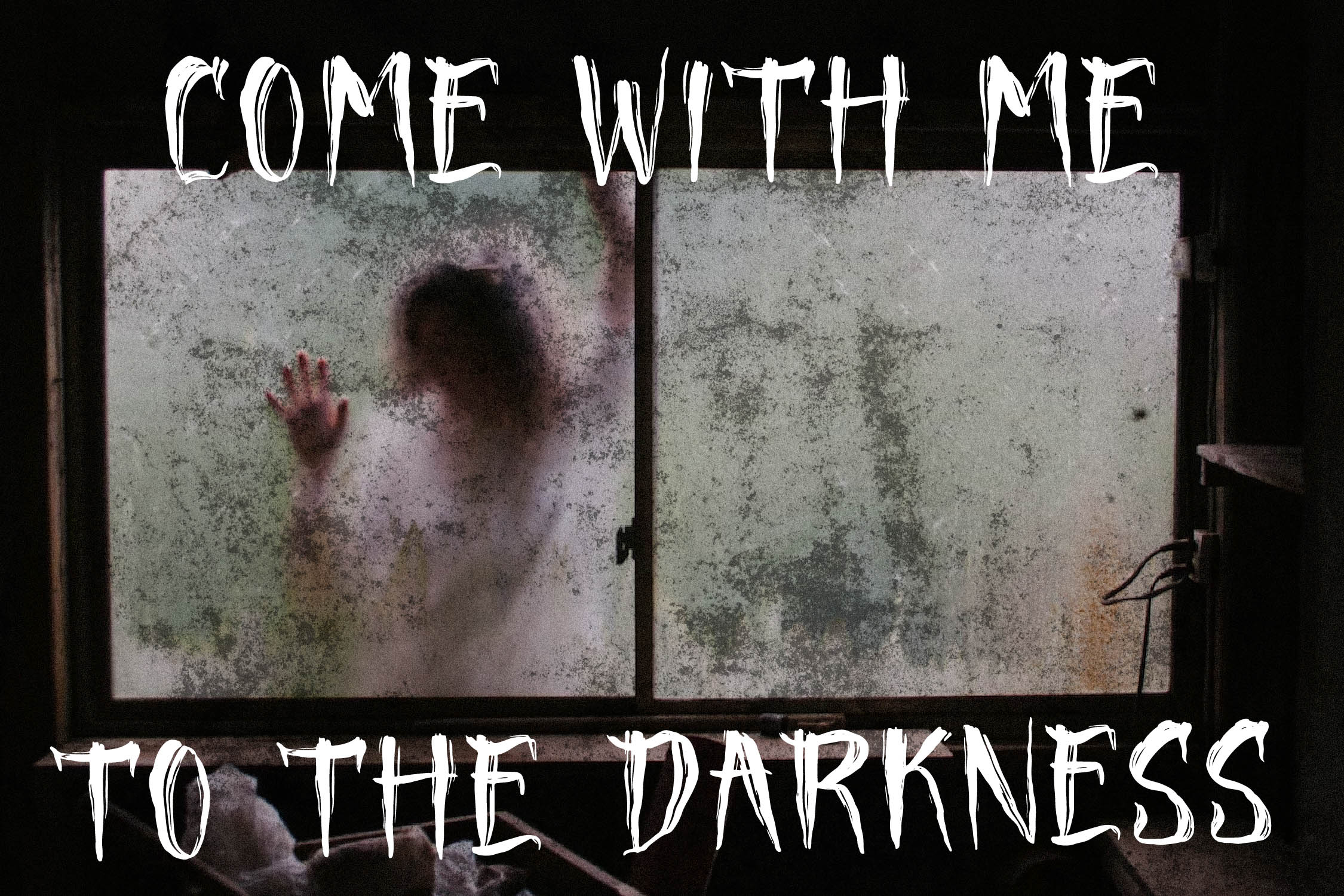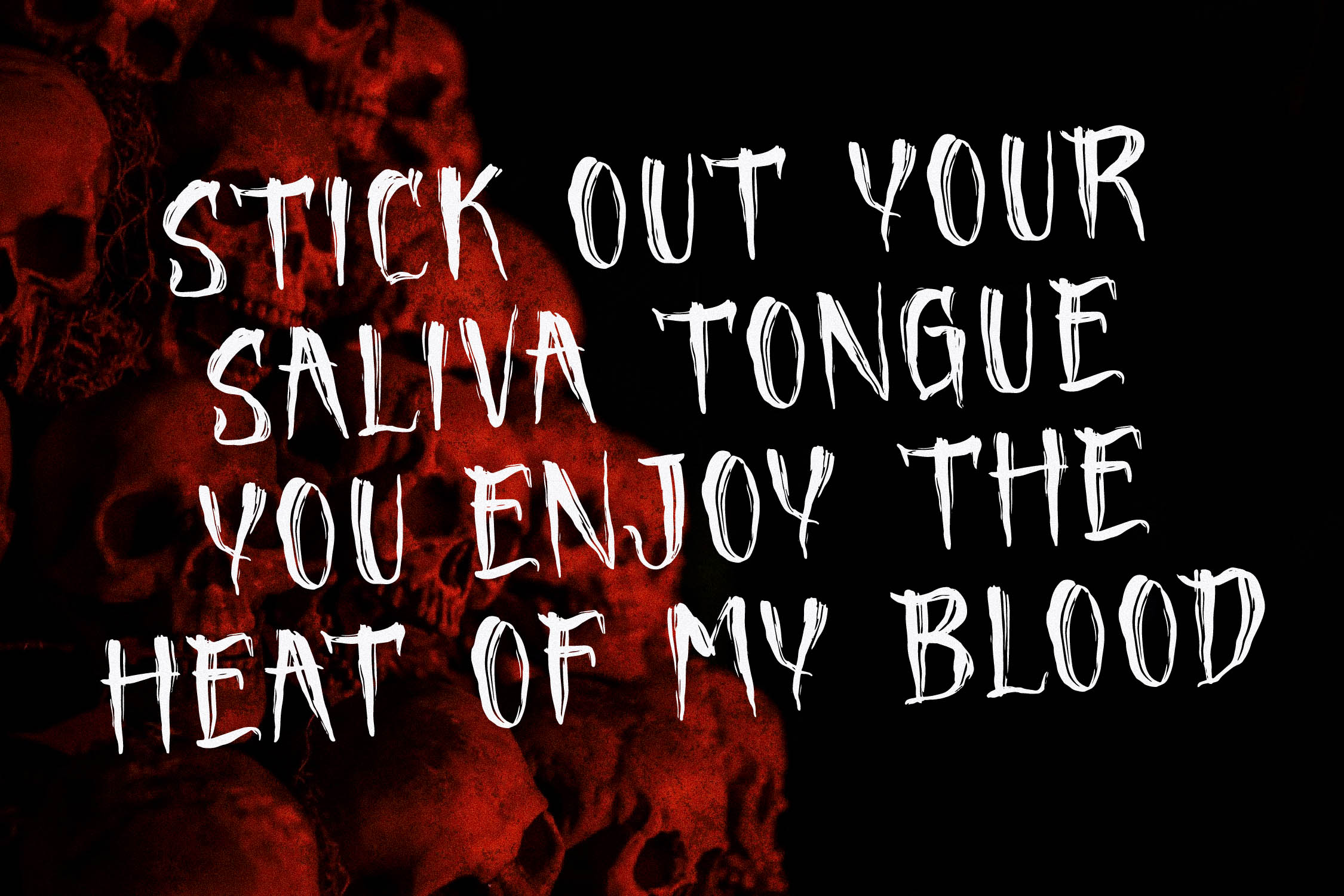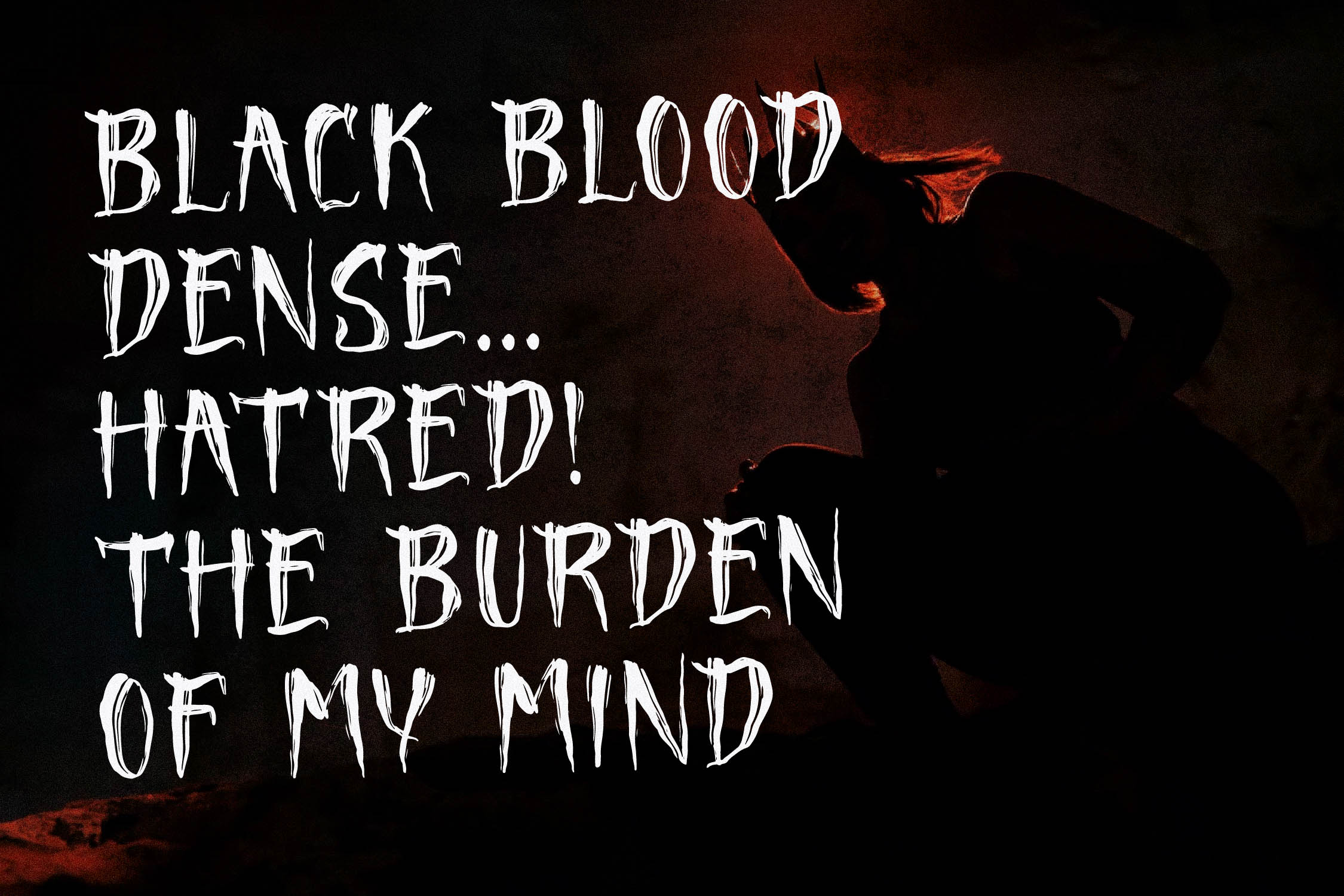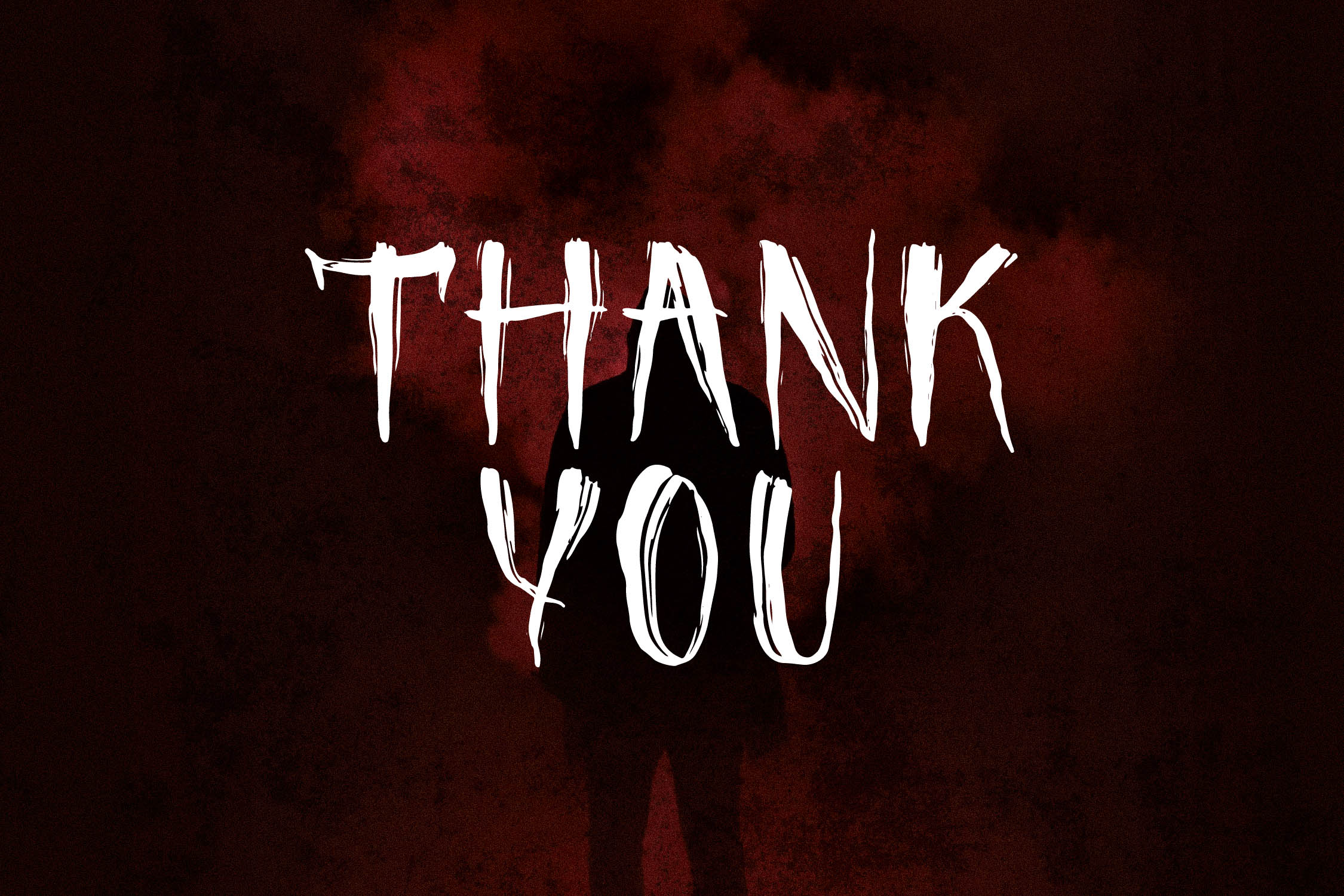
Rusty Witches Font
Rusty Witches Brush Font is a Display Horror Font , suitable for any projects such as: logos, branding projects, homeware designs, product packaging, mugs, quotes, posters, shopping bags, t-shirts, book covers, name card, invitation cards, greeting cards, label, photography, watermark, special events, and all your other lovely projects that need a beautiful script taste.